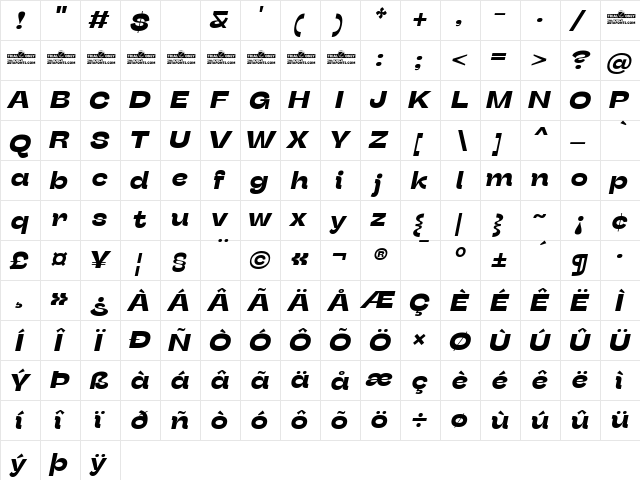
Stinger Wide Trial Bold Italic Font Preview
| Foundry | Studio Kmzero & Zetafonts |
| Designer | Cosimo Lorenzo Pancini |
Design Context for Stinger Wide Trial Typeface
Stinger Wide Trial takes a measured approach to typography — its balanced proportions and neutral character make it a reliable workhorse for both digital and print work. The dynamic lean of this cut emphasises speed and emphasis in any layout. The heavy weight commands attention and anchors typographic hierarchies.